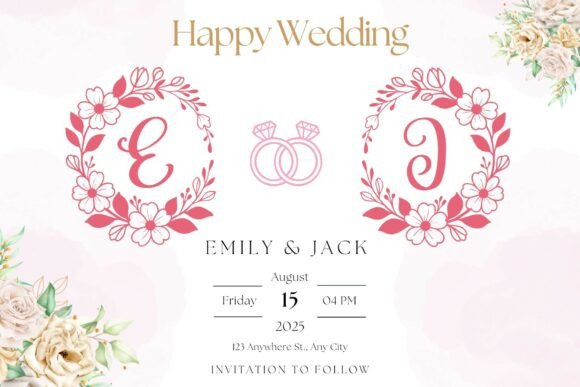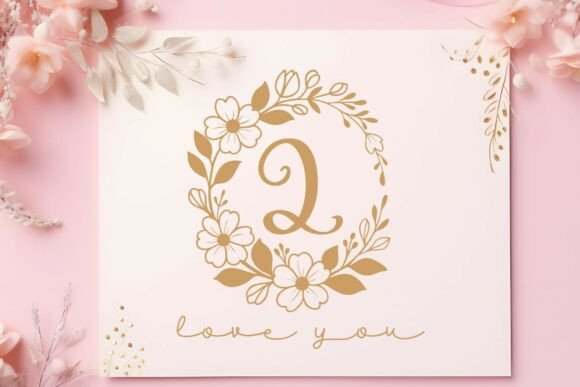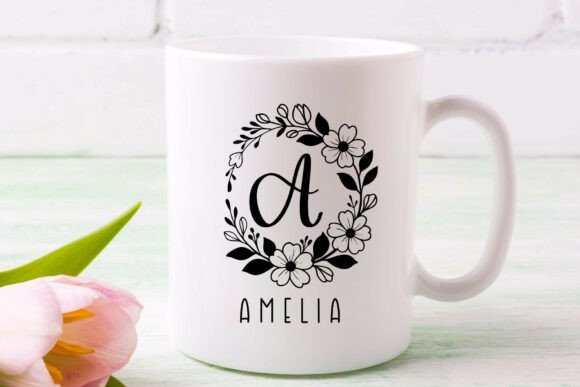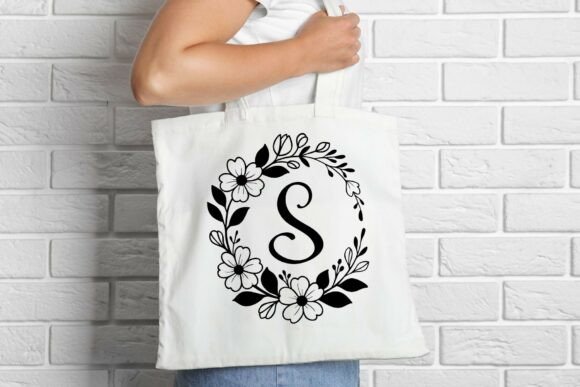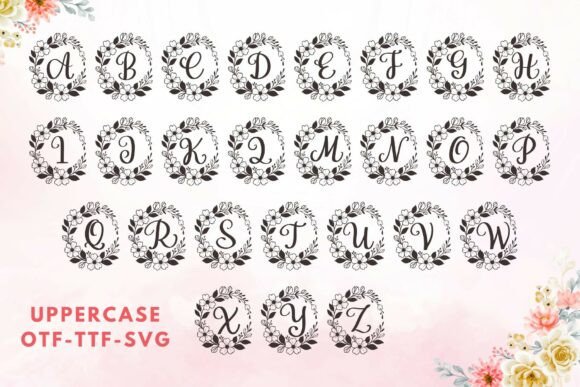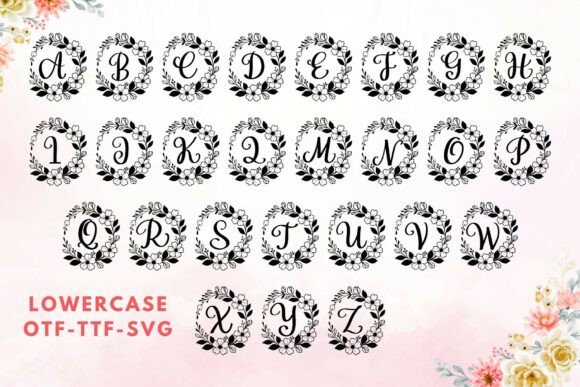
Florisia Monogram Font – Elegant Floral Decorative Letters for Wedding & Branding
Are you looking for a refined and elegant font to elevate your wedding invitations, luxury logos, stationery, or Cricut projects? Look no further than the Florisia Monogram Font, a beautiful decorative font featuring hand-drawn floral monogram letters. With its clean line art style, this font is perfect for designers and crafters seeking to add a touch of charm to their designs.
What is Florisia Monogram Font?
Florisia Monogram Font is a unique and sophisticated font designed specifically for creating stunning monogram letters. Its hand-drawn floral motifs and clean line art style make it an ideal choice for a variety of design projects, from wedding invitations and stationery to luxury logos and Cricut crafts.
Key Features of Florisia Monogram Font
- Hand-drawn floral monogram letters: Each letter is carefully crafted with intricate floral details, making every monogram a masterpiece.
- Clean line art style: The font’s clean lines and elegant curves add a touch of sophistication to any design.
- Perfect for wedding invitations: Create beautiful and elegant wedding invitations that will leave a lasting impression on your guests.
- Ideal for luxury logos: Use Florisia Monogram Font to create stunning logos for high-end brands and businesses.
- Suitable for stationery and Cricut projects: Add a touch of elegance to your stationery, cards, and Cricut crafts with this versatile font.
Benefits of Using Florisia Monogram Font
By using Florisia Monogram Font, designers and crafters can enjoy a range of benefits, including:
- Elegance and sophistication: Add a touch of luxury to your designs with this refined and elegant font.
- Versatility: Use Florisia Monogram Font for a variety of design projects, from wedding invitations to luxury logos.
- Easy to use: The font’s clean line art style makes it easy to incorporate into your designs, even for those with limited design experience.
- Unique and eye-catching: Stand out from the crowd with this one-of-a-kind font featuring hand-drawn floral monogram letters.
How to Use Florisia Monogram Font
Using Florisia Monogram Font is easy and straightforward. Here are a few tips to get you started:
- Pair with other fonts: Combine Florisia Monogram Font with other fonts to create a unique and eye-catching design.
- Experiment with colors: Try out different colors and color combinations to add depth and interest to your design.
- Add embellishments: Use Florisia Monogram Font as a base and add embellishments, such as flowers or leaves, to create a more intricate design.
Whether you’re a seasoned designer or a crafty DIY enthusiast, here are a few tips to help you get the most out of Florisia Monogram Font:
- Pay attention to font size: Experiment with different font sizes to achieve the desired level of elegance and sophistication.
- Balance with white space: Don’t be afraid to use white space to balance out your design and create a clean, elegant look.
- Experiment with different materials: Try using Florisia Monogram Font with different materials, such as paper, fabric, or wood, to add texture and interest to your design.
Florisia Monogram Font is a beautiful and elegant decorative font that’s perfect for designers and crafters seeking to add a touch of sophistication to their designs. With its hand-drawn floral monogram letters and clean line art style, this font is ideal for a variety of design projects, from wedding invitations and luxury logos to stationery and Cricut crafts. So why wait? Download Florisia Monogram Font today and start creating stunning designs that will leave a lasting impression!